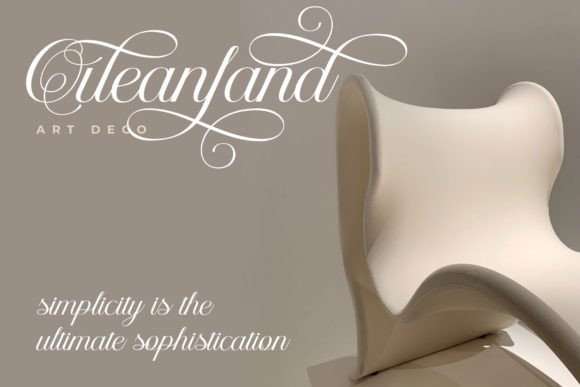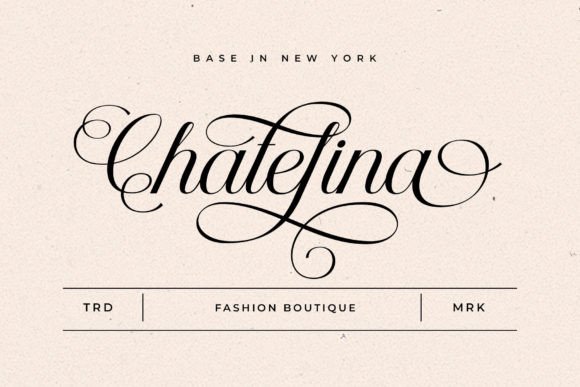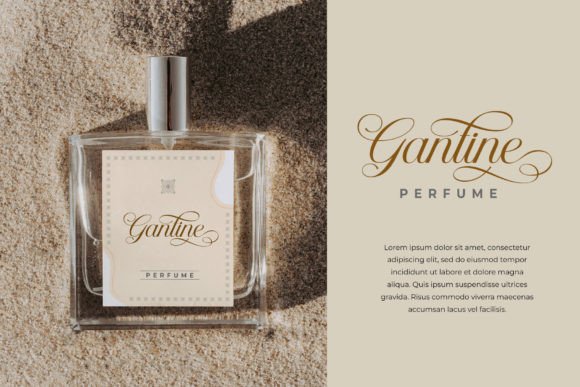
Introduction to Helyna Font
Have you ever stared at a blank canvas, waiting for the perfect design to materialize? For many of us, this is the moment when the right font can make all the difference. It’s in these moments of creative uncertainty that the Helyna Font steps in – a true design resource that elevates your project to new heights.
| 👤 Author | RantauType |
As a high-quality, elegant script font, Helyna brings a touch of sophistication to your designs. With its flowing cursive style, this font is perfect for those seeking a refined and simple look. Whether you’re working on an invitation, card, or any other creative project, Helyna Font is sure to leave a lasting impression.
Key Features of Helyna Font
- High-quality font with a transparent background, perfect for use in creative projects.
- Comes in a single font size, making it easy to integrate into any design project.
- Features a high-resolution design, suitable for use in large-scale creative projects.
- Unique, elegant design that sets it apart from other free fonts available for download.
- Perfect for use in digital design, graphic design, and print design projects.
Honest Review: Helyna Font
I recently had the chance to work with the Helyna Font on a creative project and I must say it’s been a great experience. The font’s high quality and versatility made it an excellent design resource to have in my arsenal.
Here are some things that I think work well about the Helyna Font:
- ✨ The font’s transparent background makes it easy to layer over other design elements.
- ✨ The font is highly customizable, allowing me to tailor it to fit the specific needs of my project.
However, there are some limitations to the Helyna Font that I think are worth mentioning:
- ⚠️ The font may not be suitable for very large or complex designs, as it can become difficult to read at certain sizes.
- ⚠️ The font’s high level of customization can make it difficult to maintain consistency across different elements of the design.
Overall, I’m very impressed with the Helyna Font. It’s a high-quality design resource that’s perfect for creative projects. I highly recommend it to designers of all levels.
Tips for Getting the Most Out of Helyna Font
To get the most out of Helyna Font, use it on a transparent background to create a clean and modern design. You can also use it in combination with other design elements, such as graphics and textures, to add depth and interest to your project.
Helyna Font is commonly used in creative projects, such as branding, advertising, and graphic design. It’s also great for use in presentations, posters, and other visual materials where a high-quality font is needed.